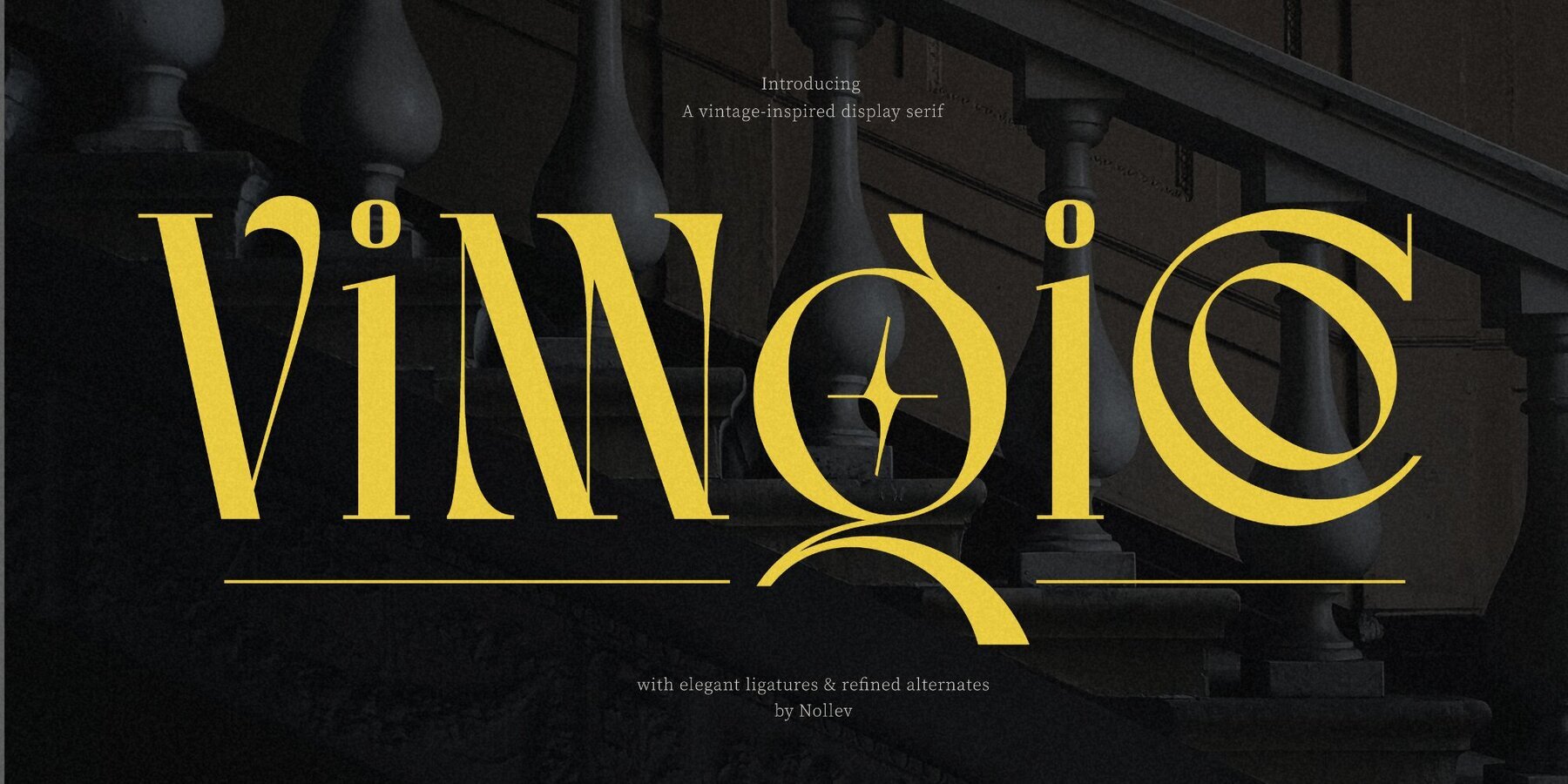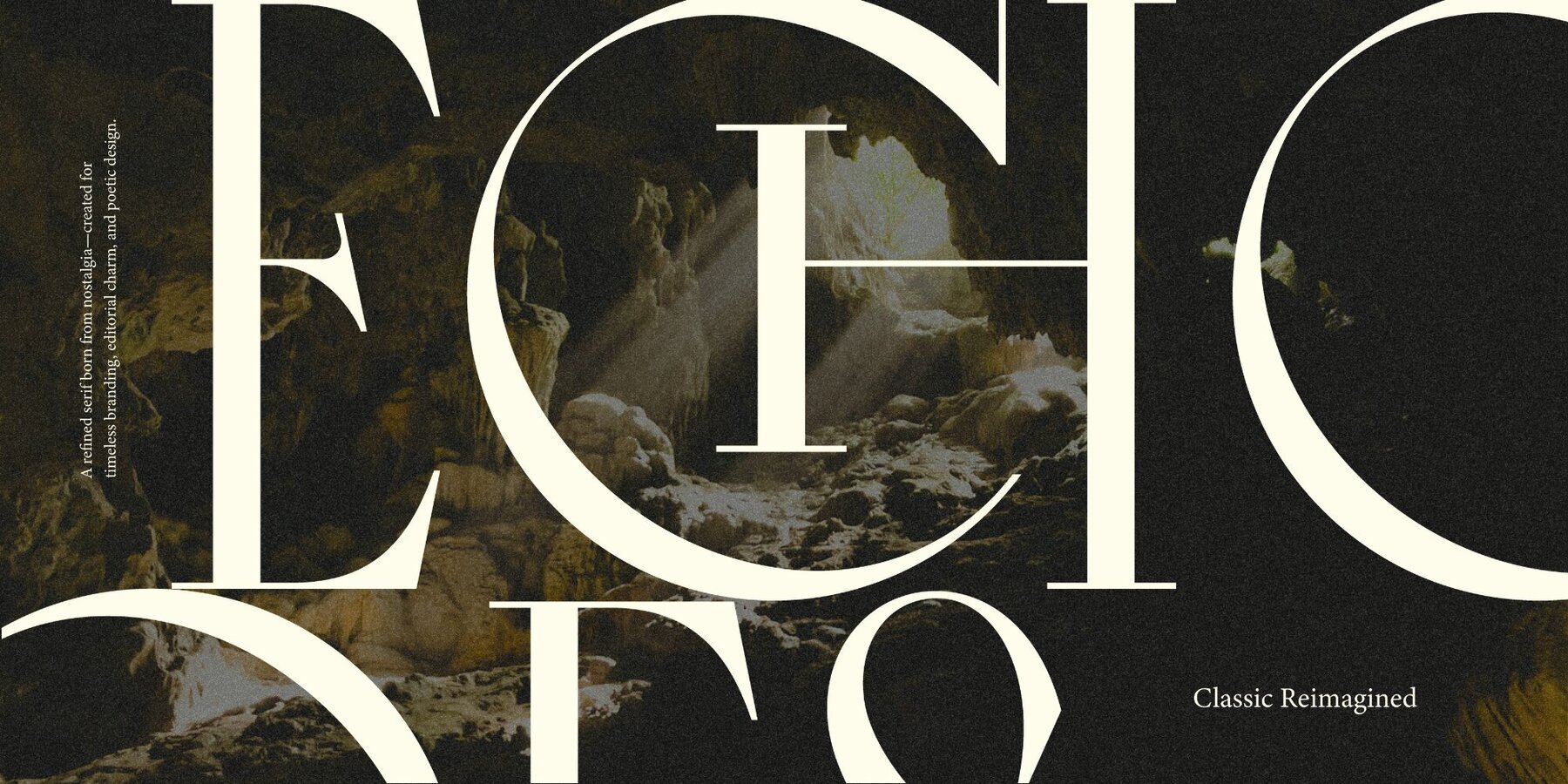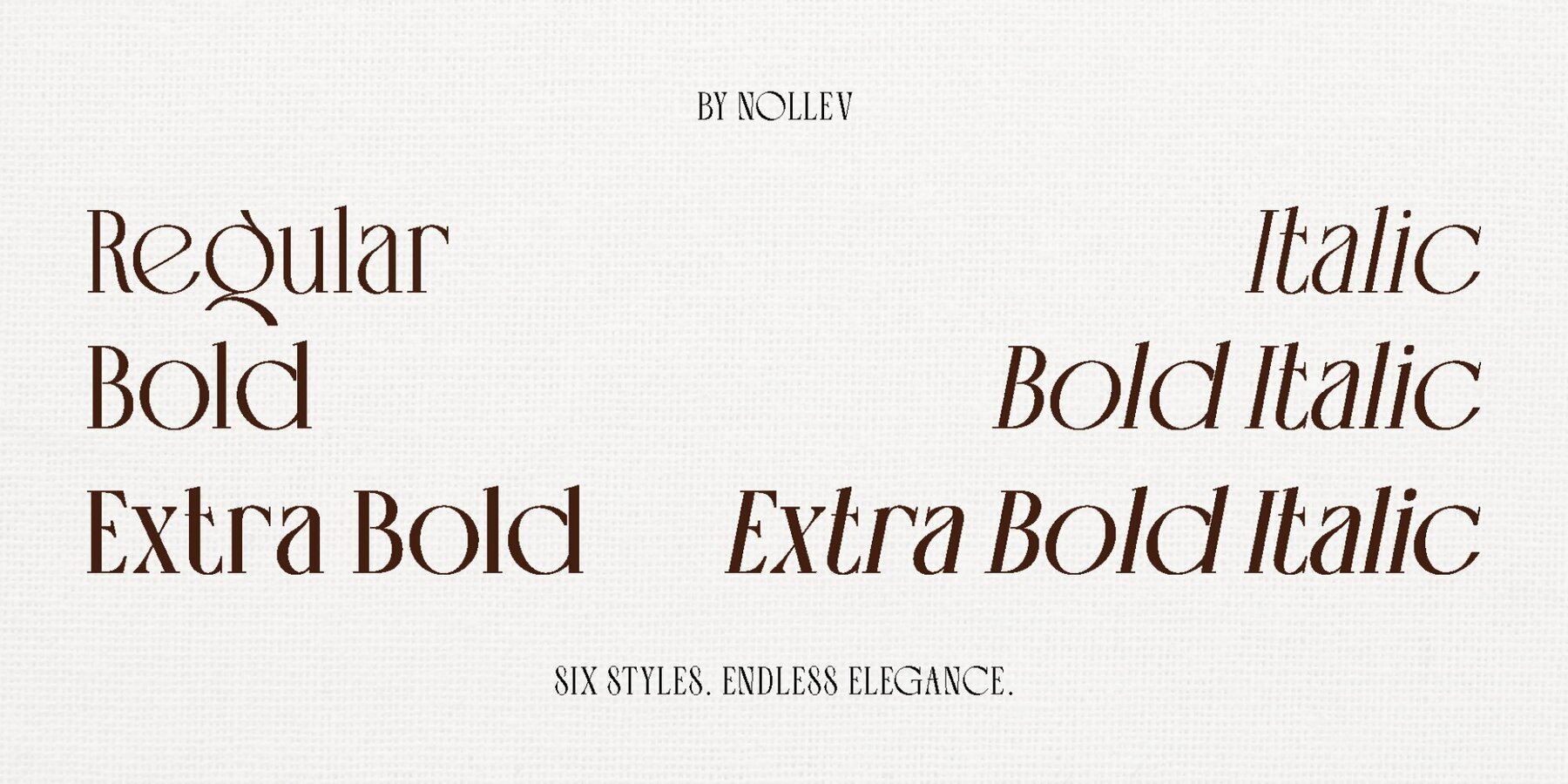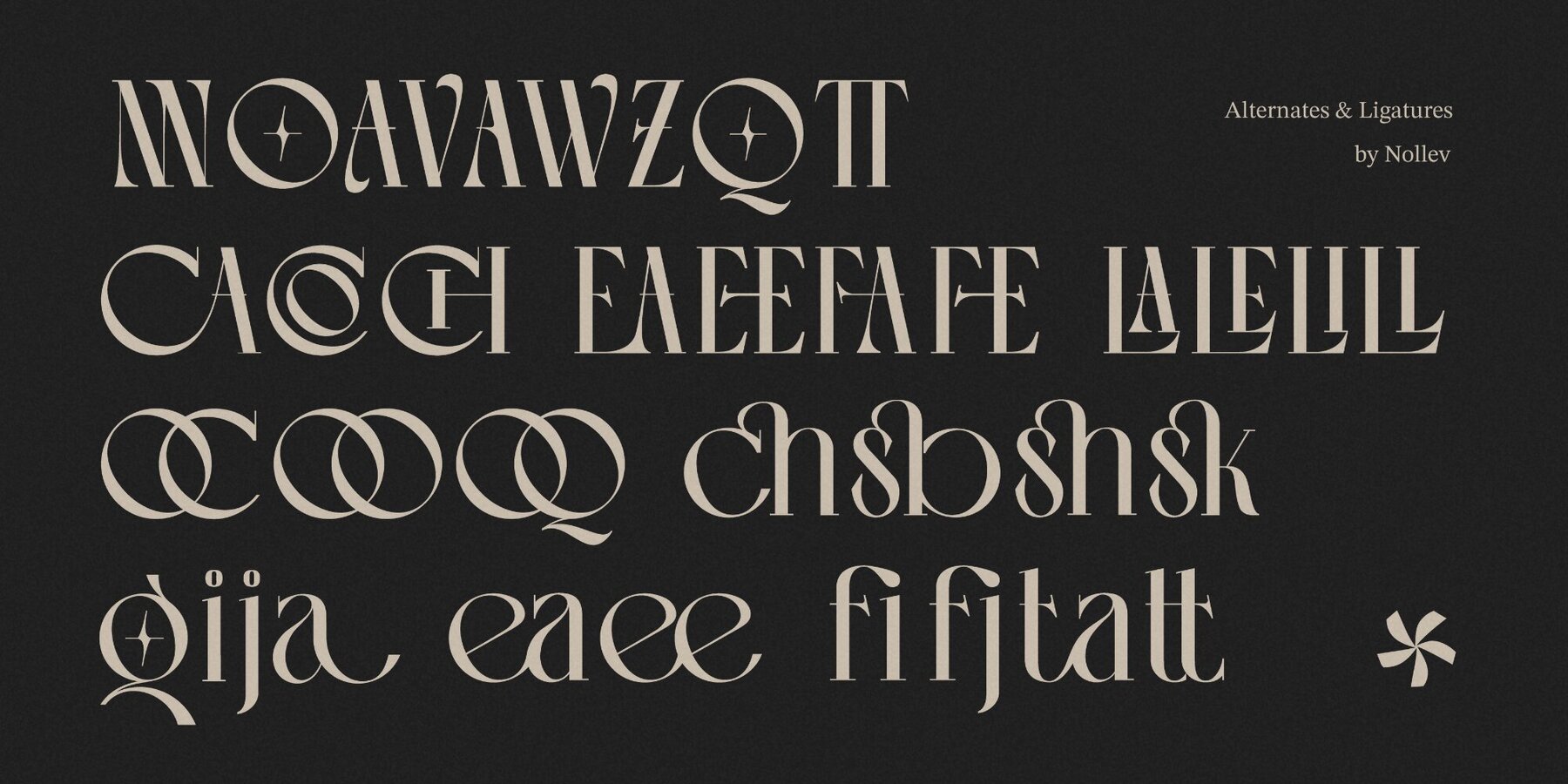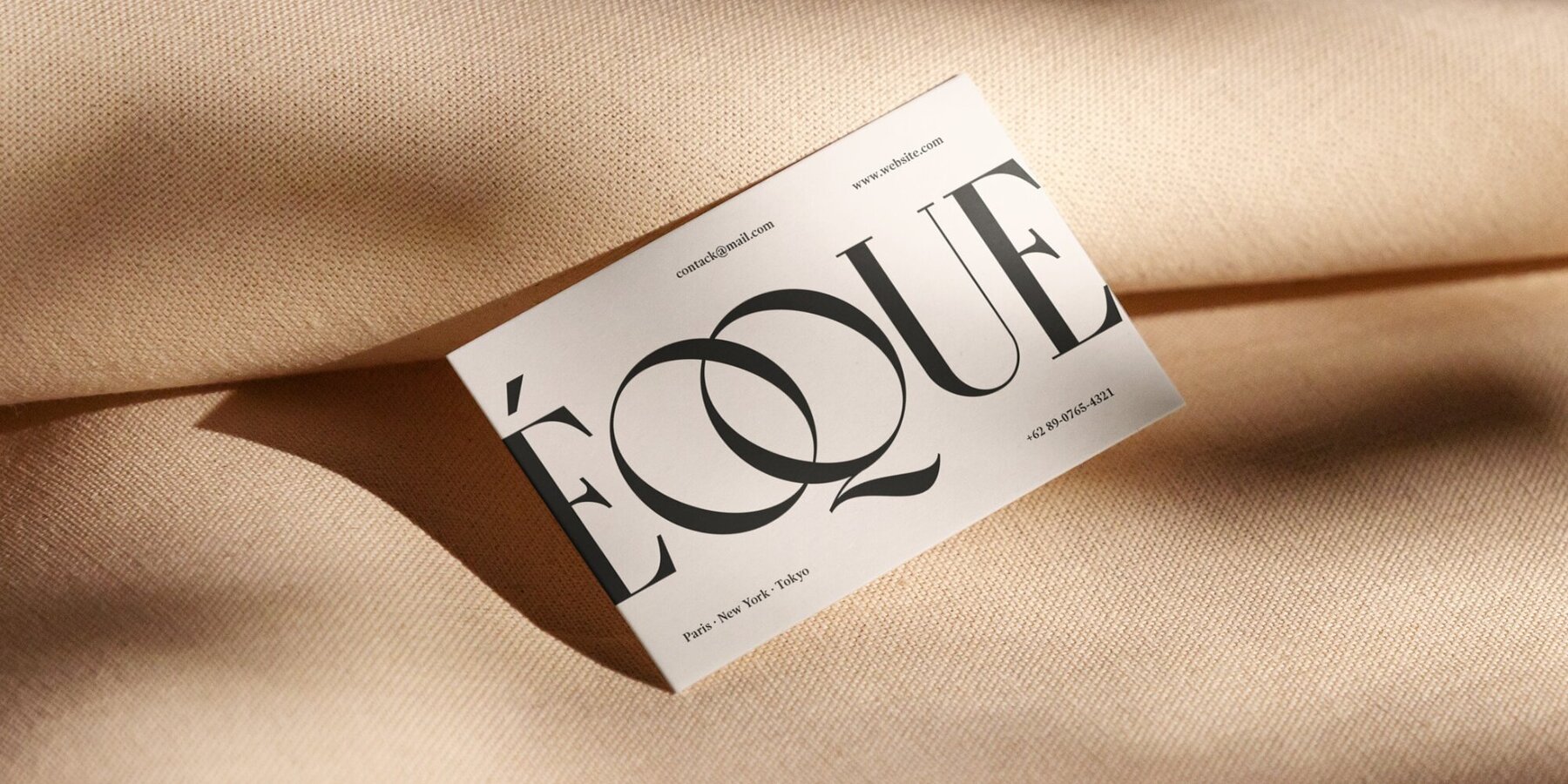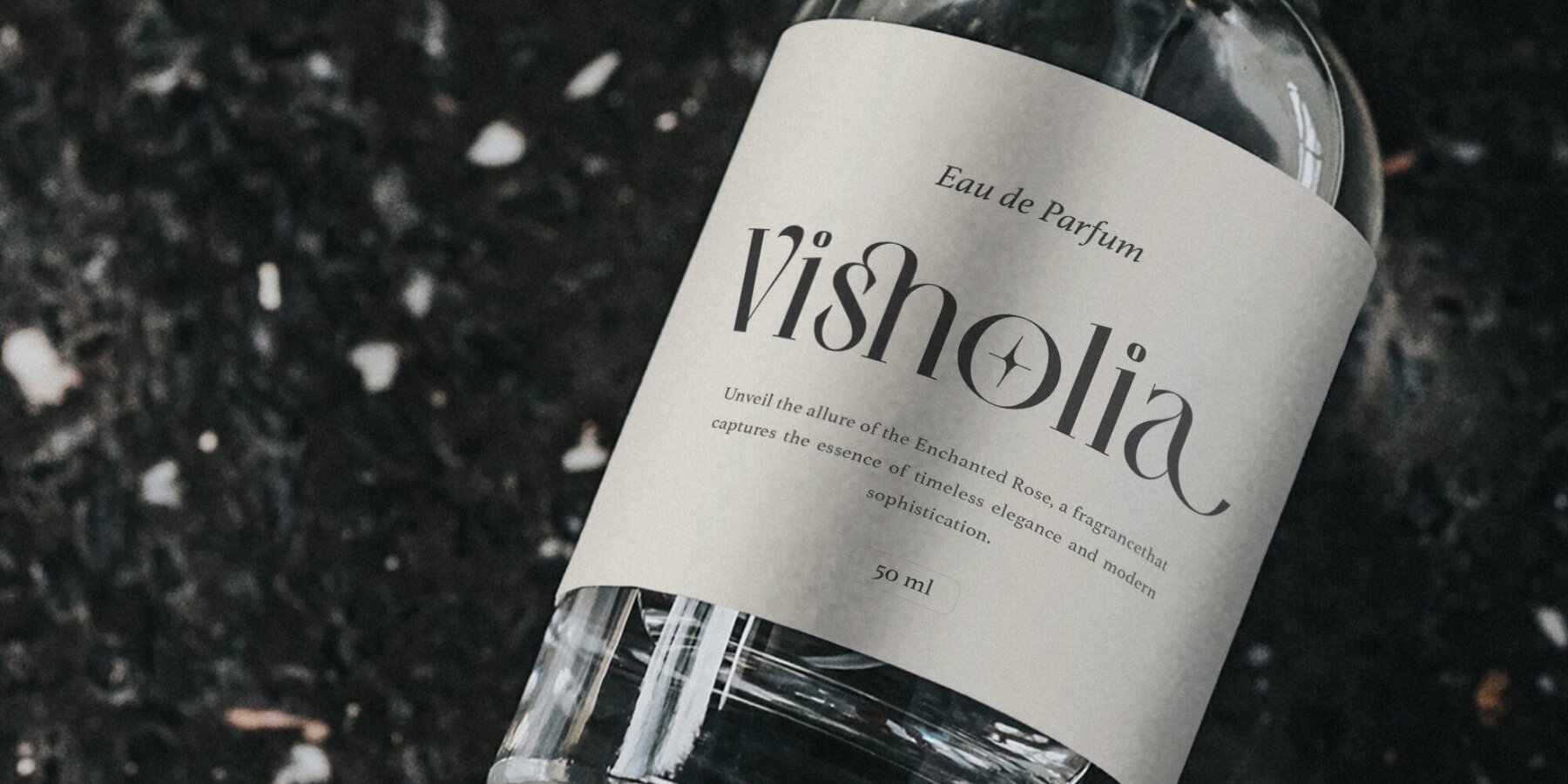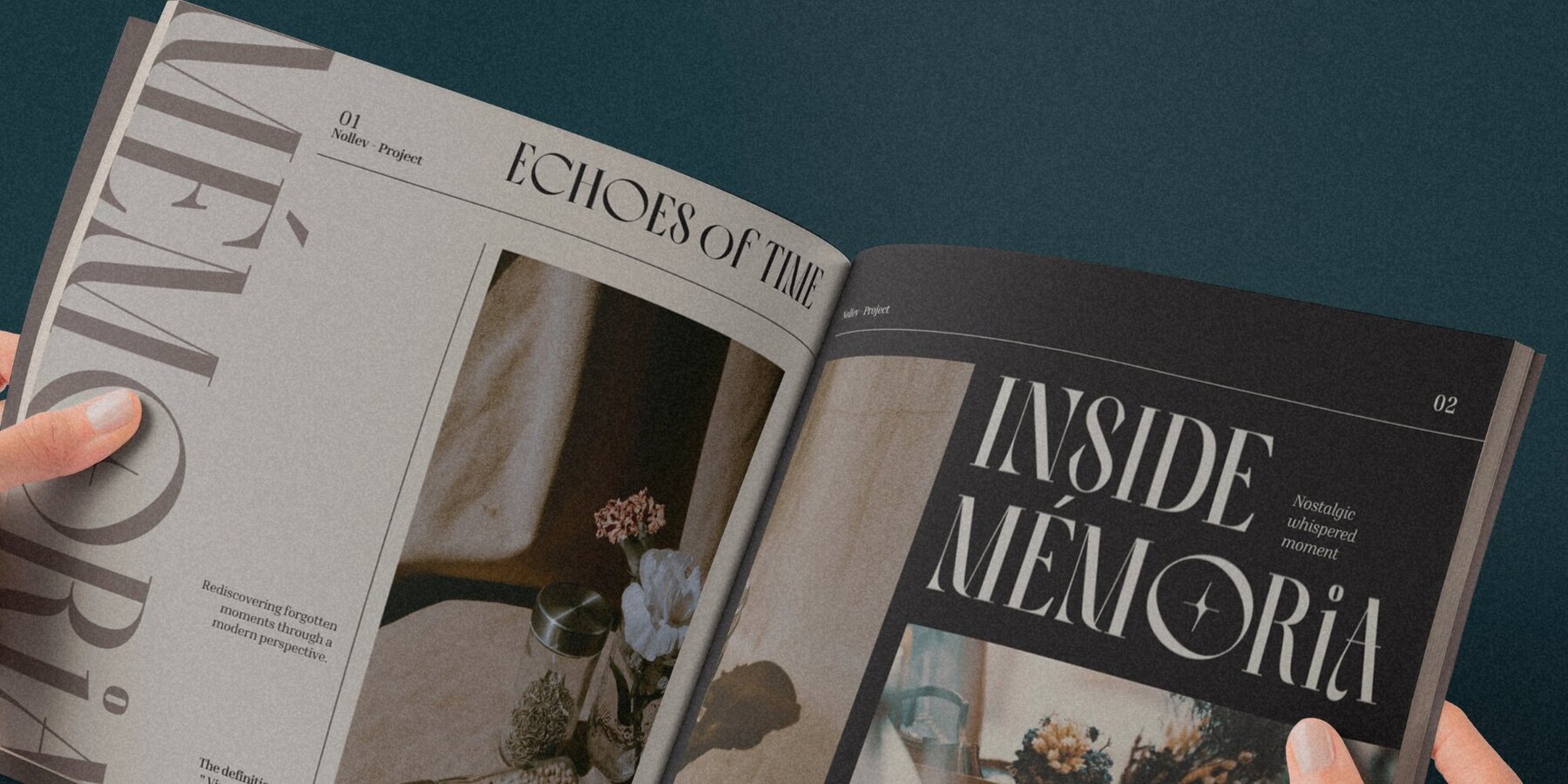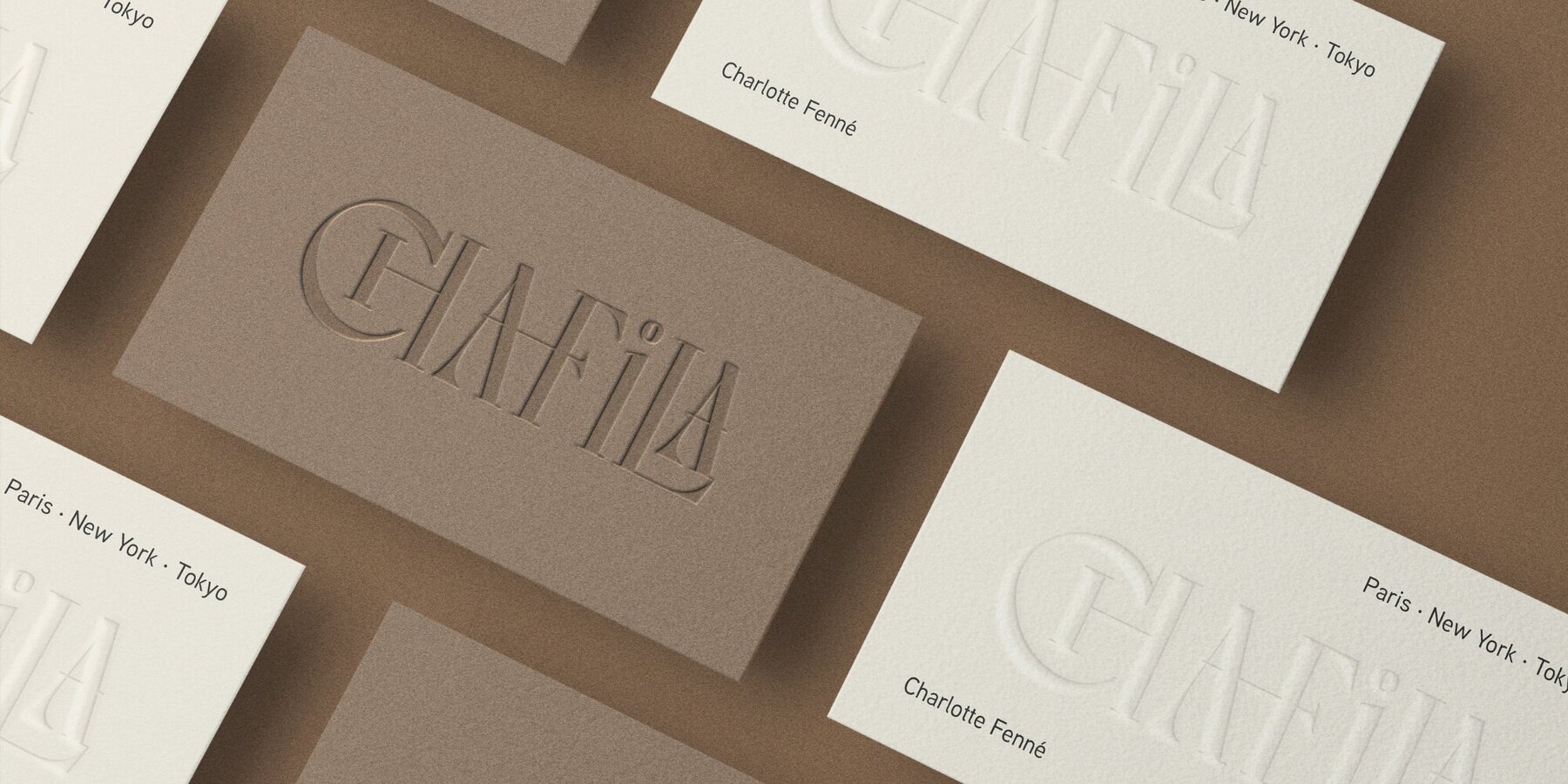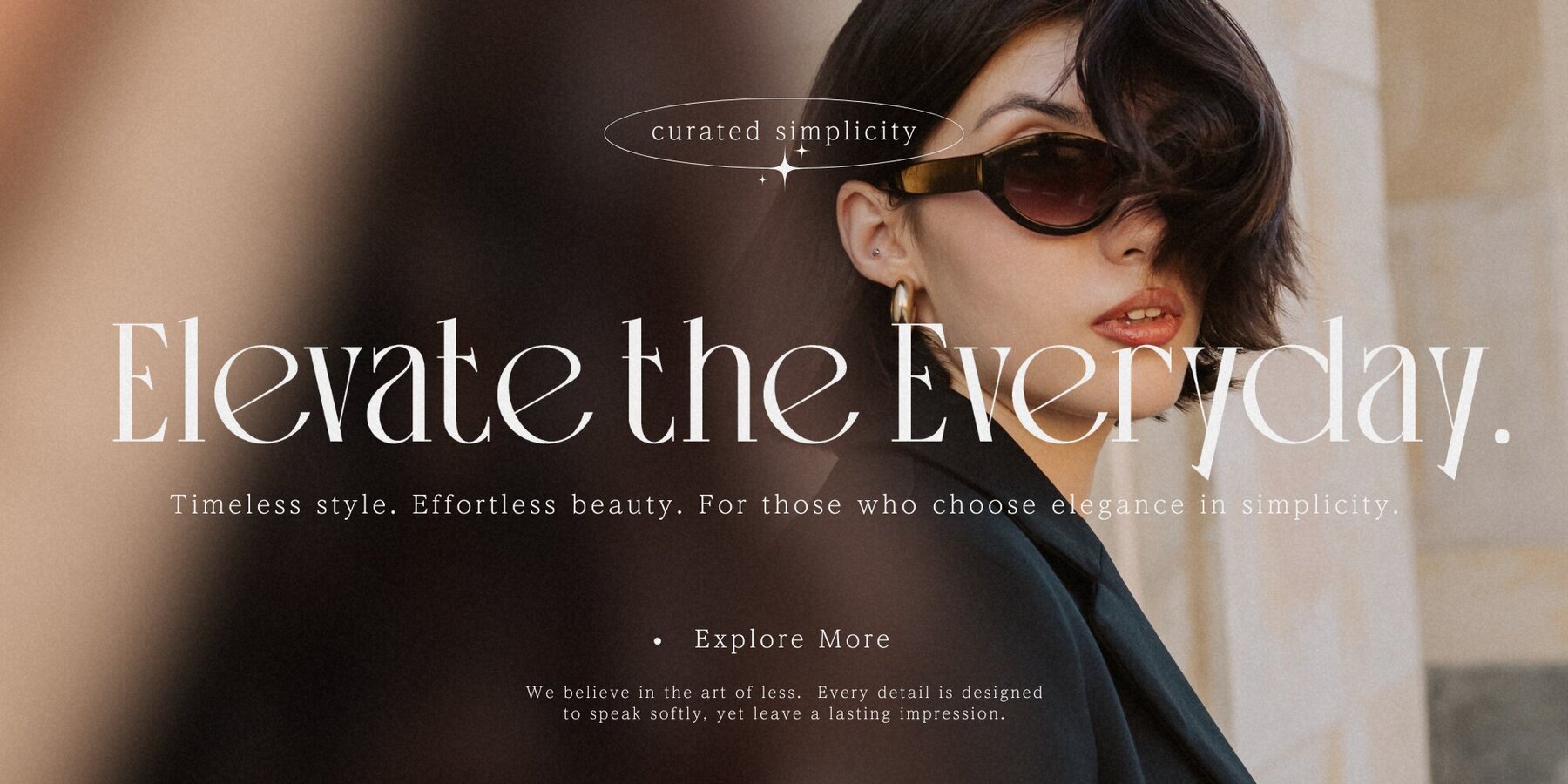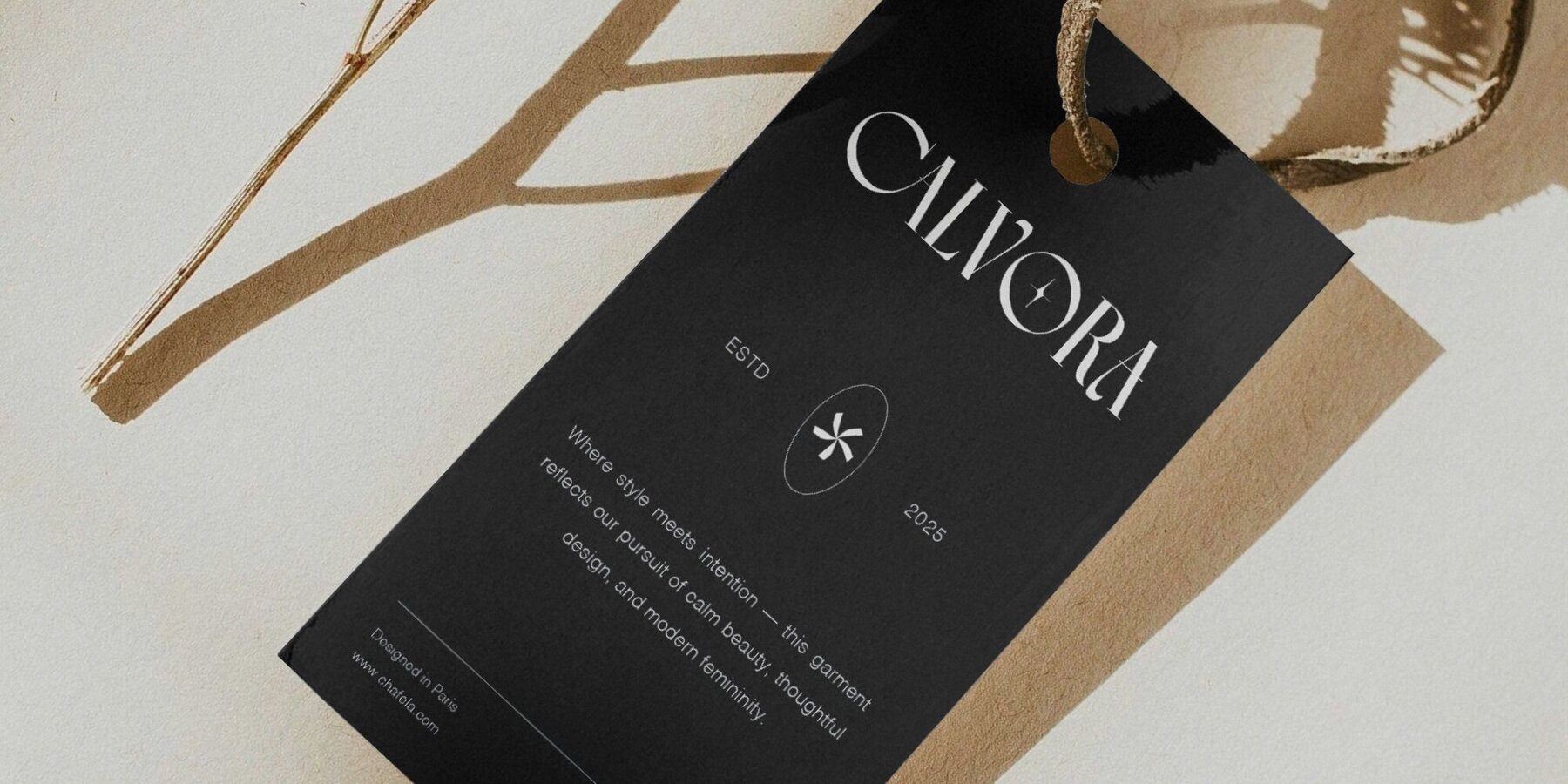
Vingico Display Font
Vingico marries modern design with a vintage essence. This serif typeface is characterized by high contrast strokes and classic proportions, offering a sophisticated touch that evokes nostalgia. Ideal for editorial layouts, branding, packaging, and display, its clean curves and precise details lend it an air of refinement and versatility. Vingico is perfect for designers seeking to infuse their work with a blend of old-school charm and modern innovation. The timeless elegance of this font makes it an exemplary choice for various design applications. Features:Vingico Display: A Refined Vintage Serif